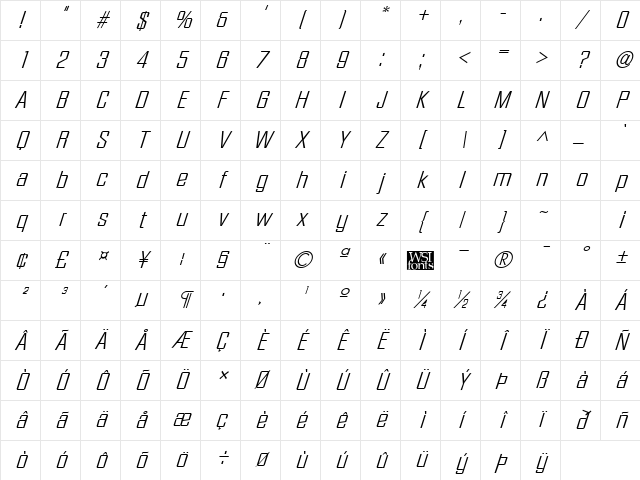
FacetLight-Xitalic Regular
FacetLight-Xitalic Family
FacetLight-Xitalic Regular
Design Context for FacetLight-Xitalic
FacetLight-Xitalic is a composed and adaptable typeface that performs quietly and consistently across a wide range of design contexts. The slanted form adds forward momentum and visual energy. Its slender proportions lend an understated elegance to any composition.